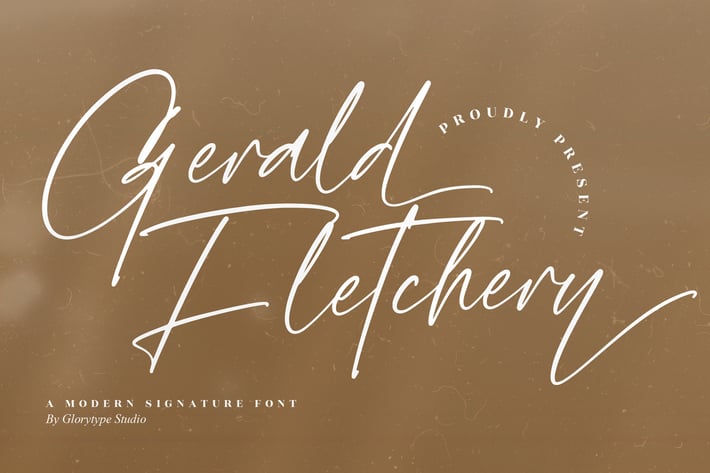
Gerald Fletchery Signature Font
Gerald Fletchery is a refined modern signature font crafted with expressive strokes and elegant handwritten curves. Its flowing letterforms bring a polished, premium feel that enhances both digital and printed designs. Perfect for creatives seeking a stylish script with personality, this font adds charm, warmth, and sophistication to every visual composition.
Modern handwritten signature style
Smooth, flowing strokes with natural elegance
Expressive letterforms for a premium handcrafted feel
Includes Regular & Italic styles
Branding & logo design
Elegant invitations
Photography overlays
Social media posts
Wedding stationery
Product packaging
Stylish title designs
A graceful, handcrafted signature style that elevates every design with effortless elegance.